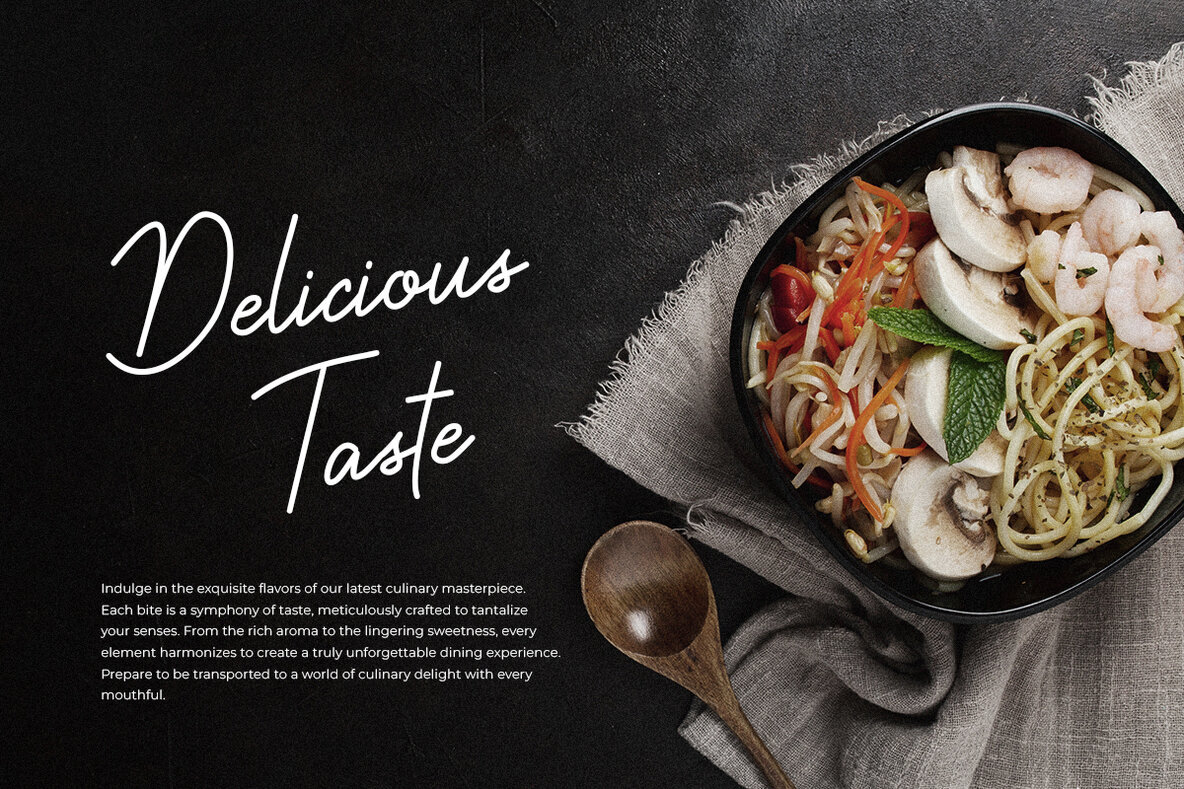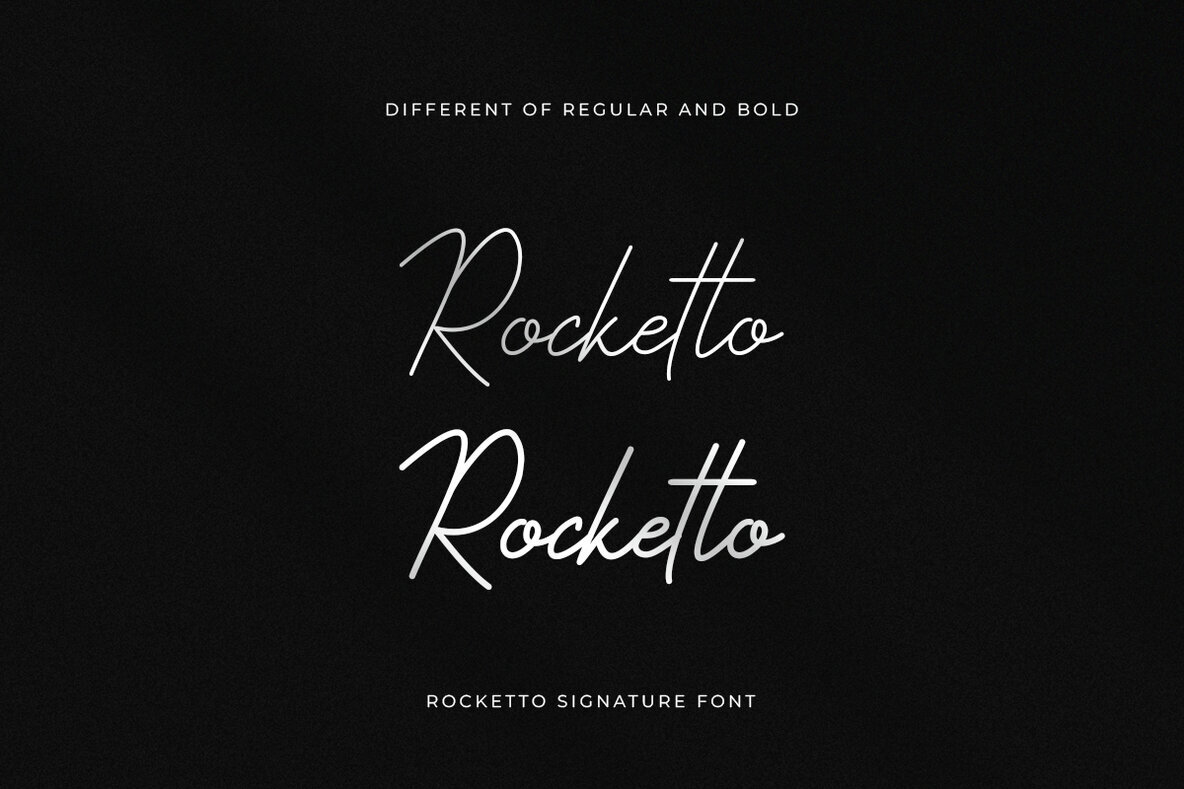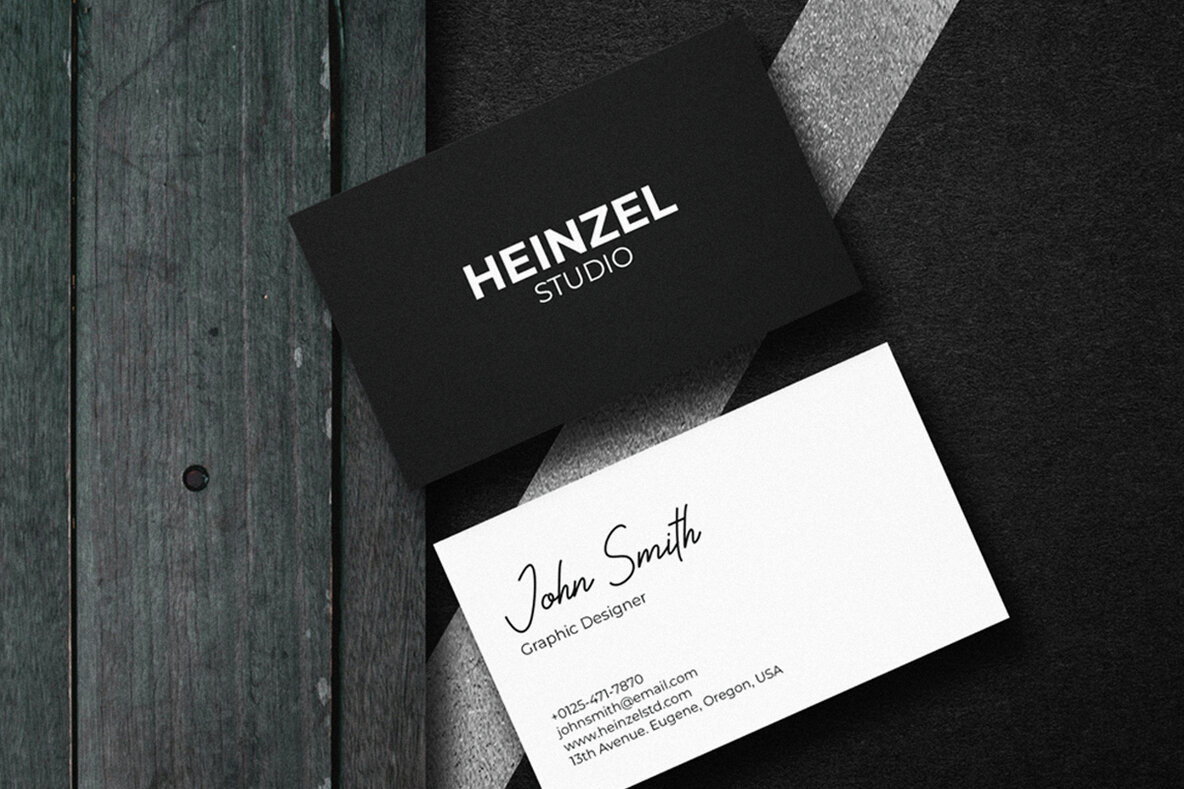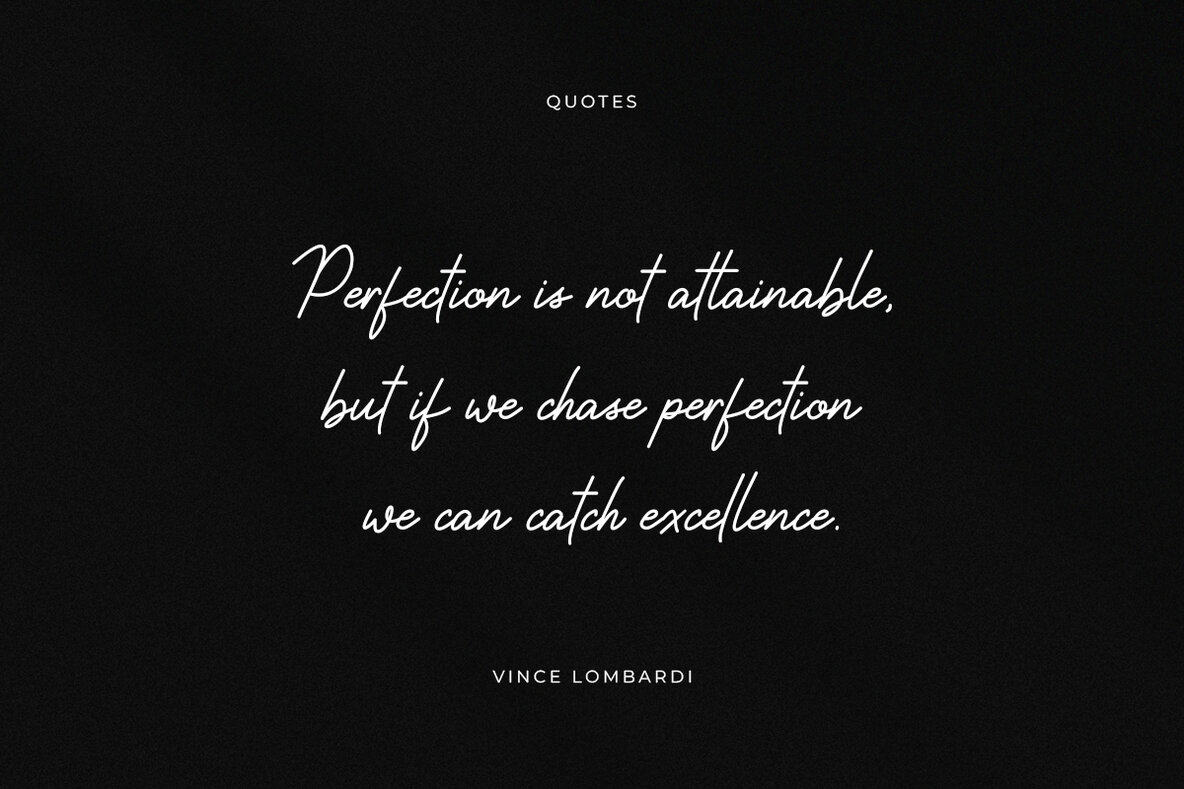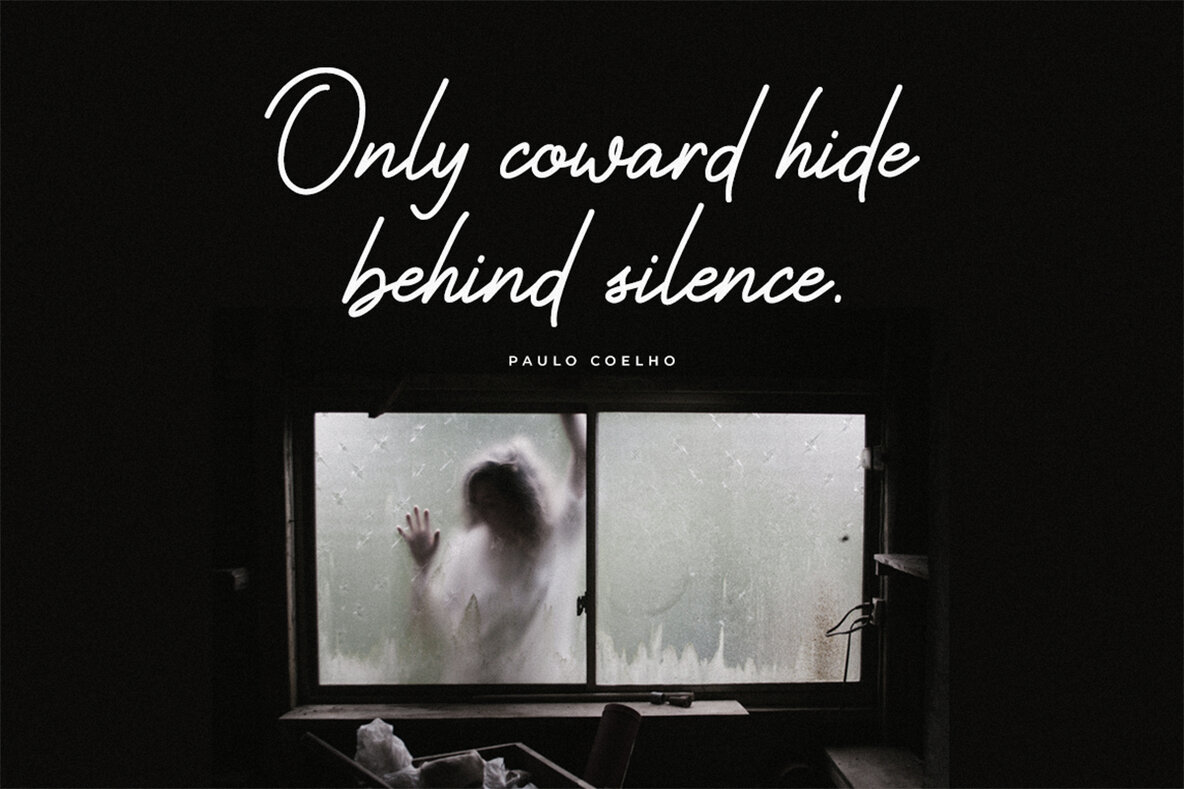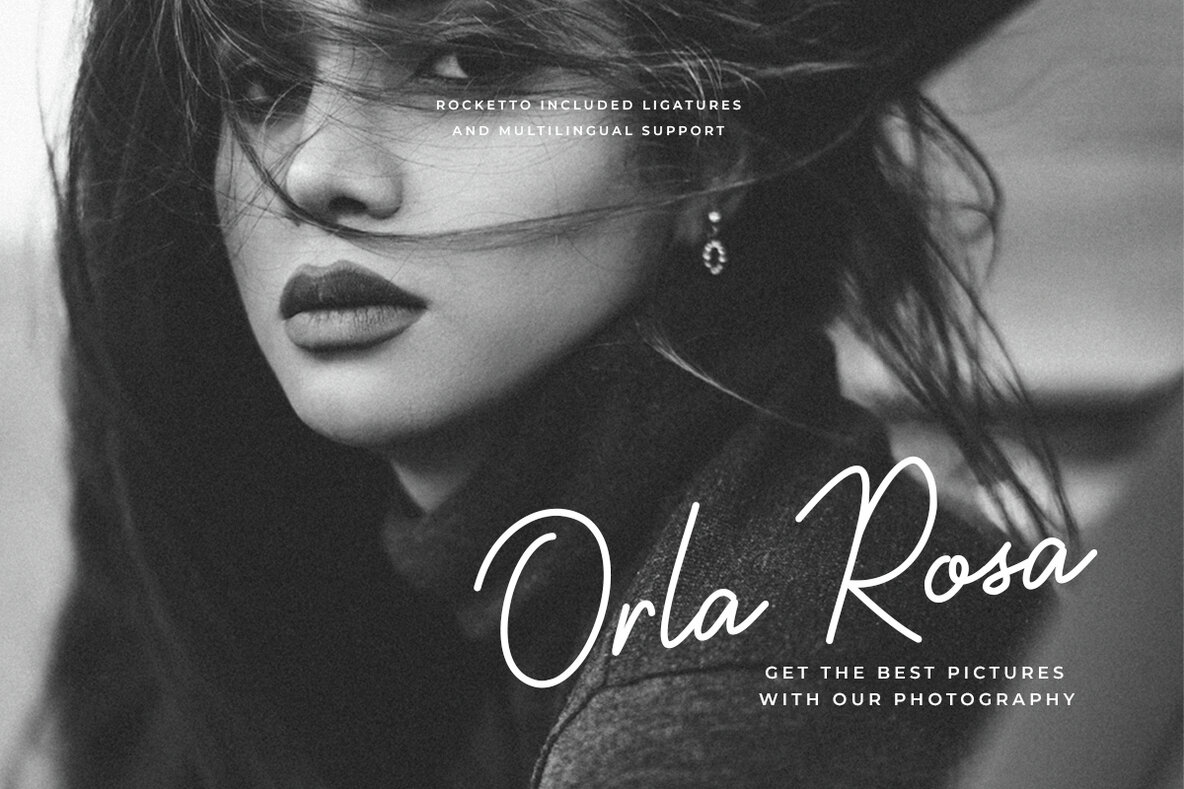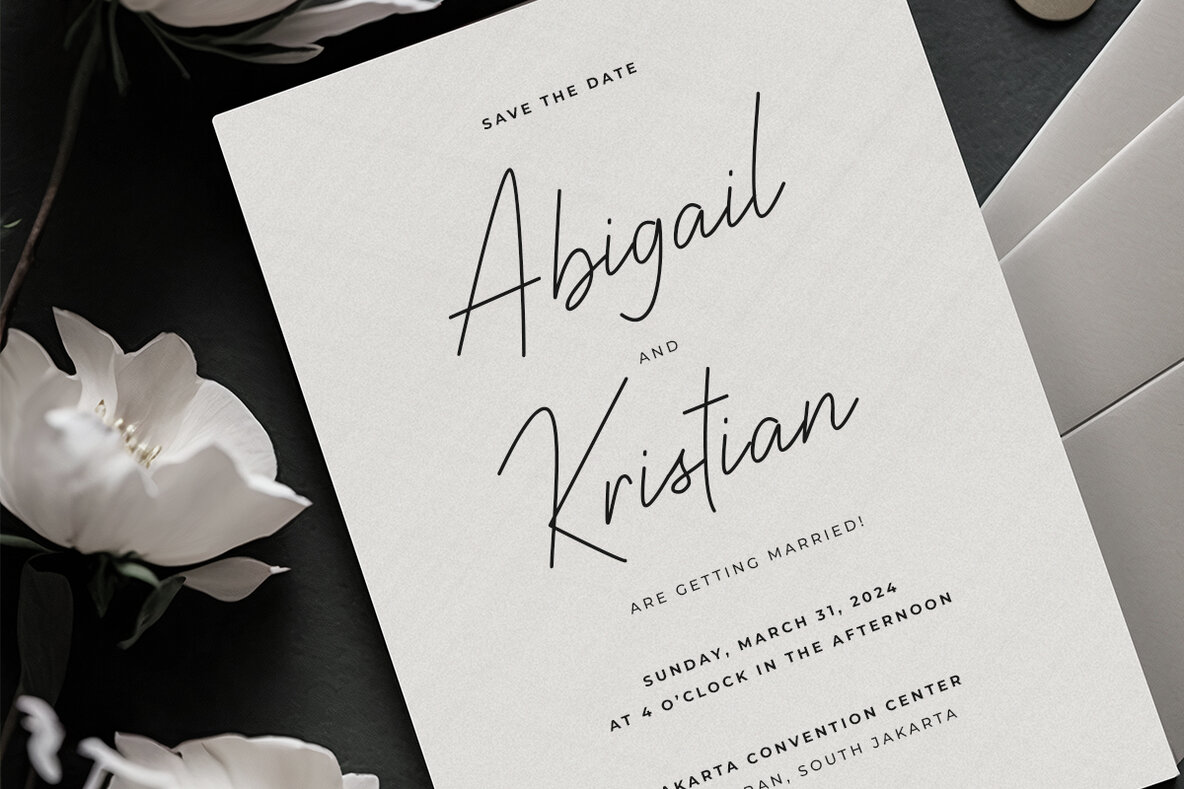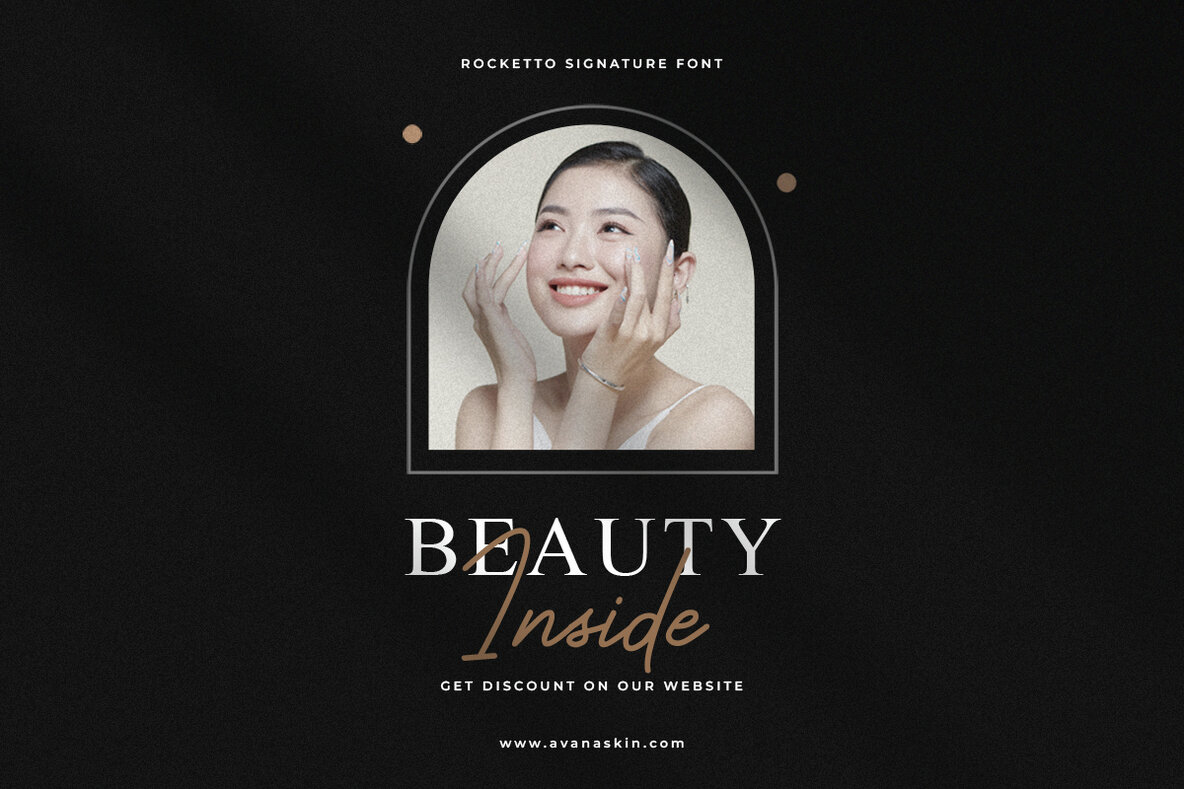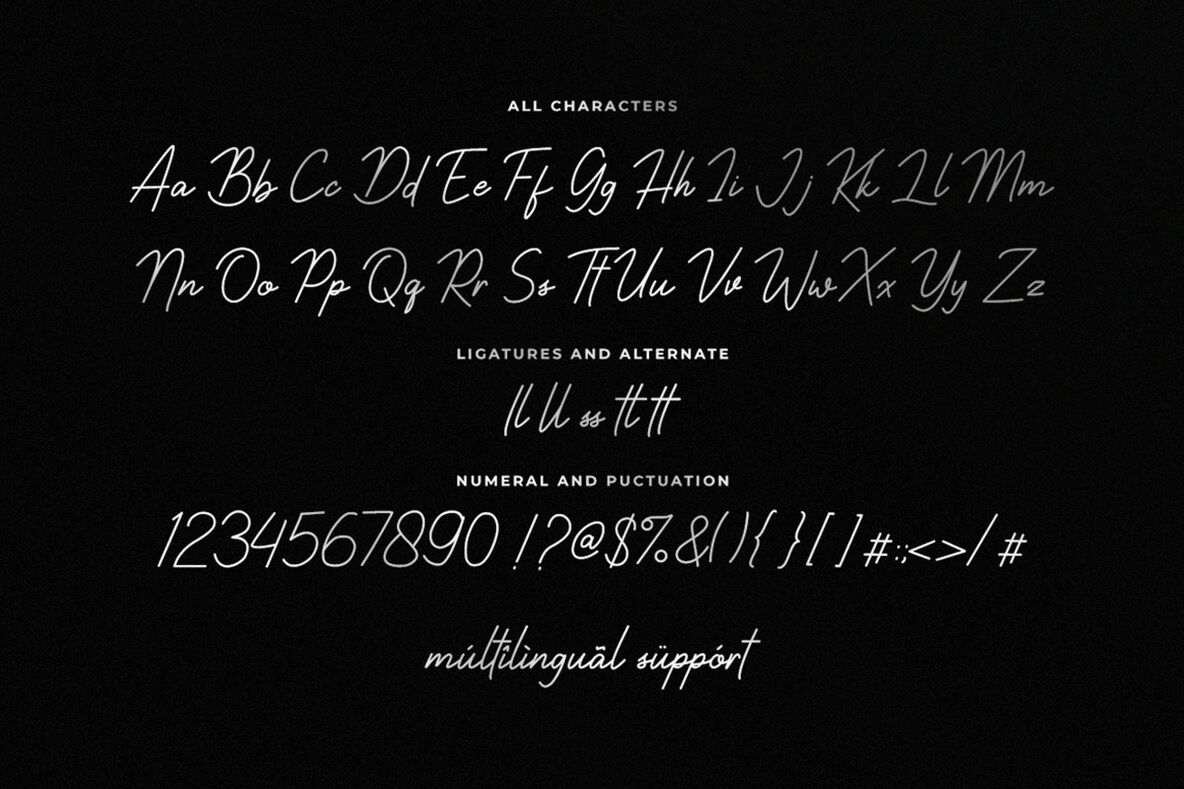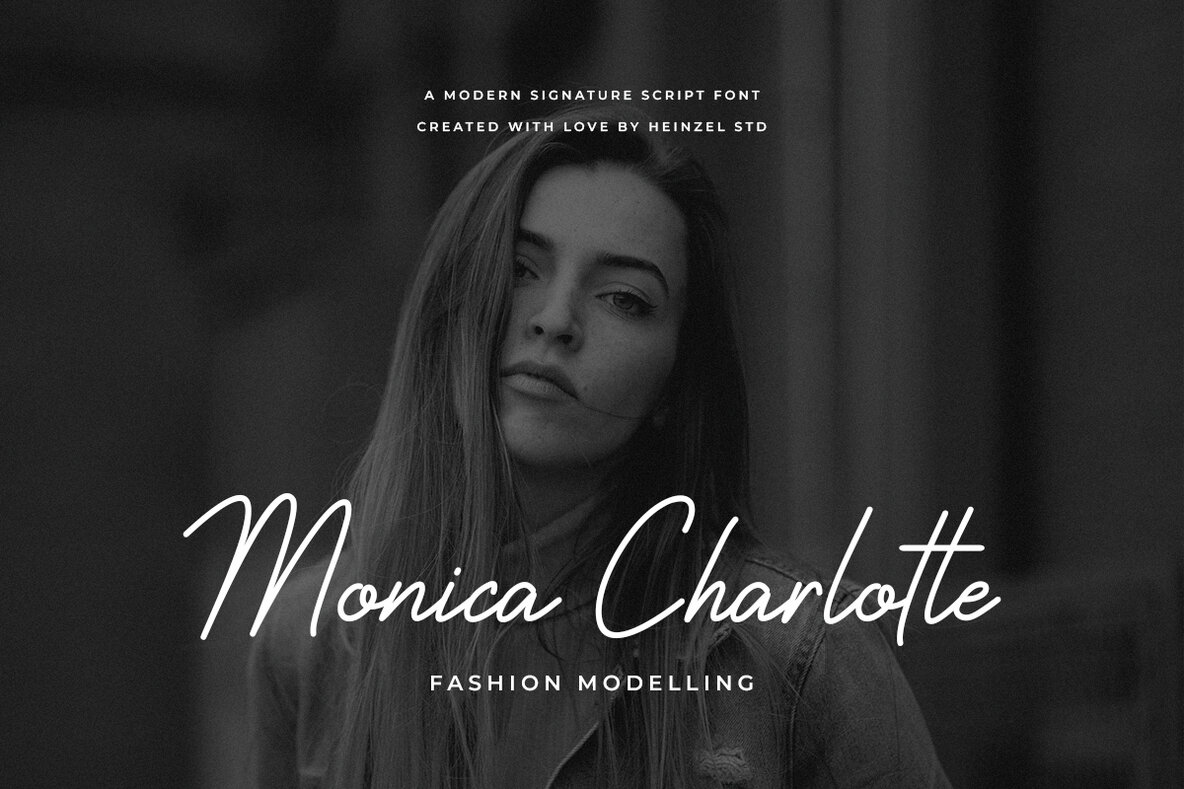
Rocketto Font
Rocketto is a magical handwritten font carefully created with a touch of elegance. It will elevate a wide range of design projects to the highest level, be it branding, headings, wedding designs, invitations, signatures, logos, labels, and much more!